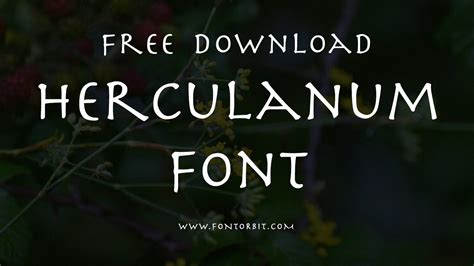
Herculanum Regular Font: A Timeless Classic
Let’s dive into the world of typography, guys ! Today, we’re shining a spotlight on a font that exudes a certain je ne sais quoi – the Herculanum Regular font . This isn’t just another typeface; it’s a piece of history, a work of art, and a testament to the enduring power of classic design. We will cover everything from its origins and characteristics to its best uses and alternatives, giving you a comprehensive understanding of why Herculanum Regular remains a cherished choice for designers and typographers alike.
Delving into the History and Origin of Herculanum Regular Font
Herculanum Regular boasts a fascinating backstory that adds to its allure. This font is not a digital creation from the late 20th or 21st century; instead, it draws its inspiration from ancient Roman inscriptions, specifically those found in the city of Herculaneum, which, like Pompeii, was tragically destroyed by the eruption of Mount Vesuvius in 79 AD. The discovery and subsequent excavation of Herculaneum unearthed a wealth of archaeological treasures, including remarkably well-preserved examples of Roman lettering. These inscriptions, characterized by their clean lines, balanced proportions, and timeless elegance, served as the primary source of inspiration for the font’s design.
The creation of Herculanum Regular can be attributed to the talented Adrian Frutiger , a Swiss typeface designer renowned for his contributions to the field of typography. Frutiger, a master of his craft, possessed a deep appreciation for historical forms and a keen eye for detail. In the 1990s, he embarked on a project to translate the essence of Herculaneum’s Roman inscriptions into a digital typeface that could be used in contemporary design. His goal was not to create a slavish imitation of the ancient lettering but rather to capture its spirit and adapt it for modern applications. Frutiger meticulously studied photographs and drawings of the Herculaneum inscriptions, analyzing the shapes of the letters, their spacing, and their overall visual impact. He then began the painstaking process of drawing each character, refining its form until it met his exacting standards. The result was Herculanum Regular, a font that embodies the timeless beauty of Roman lettering while possessing a distinct personality.
The font was carefully crafted to ensure its readability and versatility in a range of applications. Frutiger paid close attention to the kerning (the spacing between individual letters) and the overall rhythm of the typeface, ensuring that it would be pleasing to the eye and easy to read, even in extended passages of text. He also designed a full range of characters, including uppercase and lowercase letters, numerals, punctuation marks, and accented characters, making the font suitable for use in a variety of languages. Following its release, Herculanum Regular quickly gained popularity among designers and typographers who appreciated its unique blend of history and modernity. It has since been used in a wide range of projects, from book design and branding to signage and web design, demonstrating its enduring appeal and versatility.
Key Characteristics and Design Features of Herculanum Regular
When you look at Herculanum Regular , you’ll immediately notice its distinctive characteristics. It’s an all-caps font, meaning it only features uppercase letters. This isn’t a limitation but a deliberate design choice that harks back to its Roman inscription origins. The letters themselves are characterized by their clean, simple lines and balanced proportions. Each character feels meticulously crafted, with a sense of timeless elegance.
One of the most notable features of Herculanum Regular is the slight irregularity in its letterforms . Unlike some ultra-modern fonts that strive for perfect symmetry and uniformity, Herculanum Regular retains a touch of the human hand. This gives it a warmth and authenticity that is often lacking in more sterile typefaces. You might notice subtle variations in the thickness of the strokes or slight deviations from perfect geometric shapes. These imperfections are not flaws but rather intentional design elements that contribute to the font’s unique character.
Another key characteristic of Herculanum Regular is its lack of serifs . Serifs are the small decorative strokes that are found at the ends of the main strokes of a letter. Fonts with serifs are typically classified as serif fonts, while those without serifs are called sans-serif fonts. Herculanum Regular falls into the latter category. The absence of serifs gives the font a clean, modern look, even though it is based on ancient forms. This makes it a versatile choice for a wide range of design applications.
Furthermore, Herculanum Regular is known for its excellent readability , especially when used in headings and titles. The letters are well-spaced and easy to distinguish, even at smaller sizes. This is due in part to the font’s open counters (the enclosed spaces within letters such as “O” and “P”) and its relatively high x-height (the height of the lowercase “x” relative to the uppercase letters). These design features contribute to the font’s overall clarity and legibility. It also has a certain weight and presence on the page, commanding attention without being overly aggressive. It’s a font that speaks with authority and confidence, making it an excellent choice for projects that require a touch of gravitas. Its unique design features contribute to its timeless appeal, making it a favorite among designers and typographers who appreciate its blend of history and modernity.
Ideal Uses and Applications for Herculanum Regular Font
So, where does Herculanum Regular truly shine? Given its historical roots and elegant design, it’s particularly well-suited for projects that aim to convey a sense of history, tradition, or sophistication. Think branding for luxury goods, museums, historical societies, or even high-end restaurants. It’s also a fantastic choice for book covers, particularly those dealing with historical topics or classical literature. Its distinct letterforms can immediately grab the reader’s attention and set the tone for the book’s contents.
In the realm of editorial design , Herculanum Regular can be used to create impactful headlines and subheadings. Its strong presence on the page ensures that key information stands out, guiding the reader through the text. However, it’s generally not recommended for body text, as its all-caps design can become tiring to read in large blocks. Instead, pair it with a more legible serif or sans-serif font for the main body of your text. When it comes to branding , Herculanum Regular can lend a touch of class and sophistication to your visual identity. It’s particularly effective for brands that want to project an image of heritage, quality, and timelessness. Imagine it adorning the logo of a prestigious watchmaker or a renowned art gallery. Its unique letterforms will help your brand stand out from the competition and create a memorable impression.
Beyond print, Herculanum Regular can also be used in digital design , although with some caution. Its all-caps design can sometimes be challenging to read on screen, especially at smaller sizes. However, it can be used effectively for website headers, banners, and other display elements. Just be sure to test its readability on different devices and screen resolutions. In terms of design styles , Herculanum Regular pairs well with a variety of aesthetics. It can be used to create a classic, traditional look, or it can be combined with more modern elements to create a unique and unexpected contrast. It also works well with a range of color palettes, from muted earth tones to bold, vibrant hues. Its versatility makes it a valuable tool for designers who want to create visually appealing and impactful designs. Ultimately, the key to using Herculanum Regular effectively is to understand its strengths and limitations and to use it in a way that complements the overall design. Its unique blend of history and modernity makes it a font that can add a touch of class and sophistication to any project.
Exploring Font Alternatives to Herculanum Regular
While Herculanum Regular is a unique and beautiful font, it’s not always the perfect choice for every project. Sometimes, you might need a font that offers a similar aesthetic but with a slightly different flavor. Or perhaps you need a font that’s more versatile and can be used for both headings and body text. Whatever your reason, there are several excellent alternatives to Herculanum Regular that are worth considering.
One popular alternative is Trajan Pro , designed by Carol Twombly for Adobe. Like Herculanum Regular, Trajan Pro is inspired by Roman square capitals, specifically those found on the Trajan Column in Rome. It’s an all-caps font that exudes a sense of grandeur and authority, making it a great choice for projects that require a touch of historical gravitas. However, Trajan Pro is slightly more refined and polished than Herculanum Regular, with more consistent letterforms and a more contemporary feel. Another excellent alternative is Optima , designed by Hermann Zapf. Optima is a sans-serif font that features elegant, humanist letterforms. While it doesn’t have the same historical connection as Herculanum Regular, it shares a similar sense of timelessness and sophistication. Optima is also more versatile than Herculanum Regular, as it includes both uppercase and lowercase letters, making it suitable for a wider range of applications.
If you’re looking for a font that’s a bit more modern and geometric, consider Futura . Designed by Paul Renner in 1927, Futura is a classic sans-serif font that’s characterized by its clean lines and geometric shapes. While it doesn’t have the same historical feel as Herculanum Regular, it shares a similar sense of simplicity and elegance. Futura is also a very versatile font that can be used for a wide range of design applications. For a font with a similar feel but with added versatility, you might explore Montserrat . This typeface, popular in web design, offers a geometric sans-serif style with a wide range of weights and styles, making it suitable for both headings and body text.
Finally, if you want to stay true to the Roman aesthetic but need a font that includes lowercase letters, consider using a serif font like Garamond or Times New Roman for body text and pairing it with Herculanum Regular for headings. This can create a visually appealing contrast and ensure that your text is easy to read. Ultimately, the best alternative to Herculanum Regular will depend on the specific requirements of your project. Consider the overall tone and message you want to convey, as well as the readability and versatility of the font. With a little experimentation, you’re sure to find the perfect typeface to complement your design.
Conclusion: The Enduring Appeal of Herculanum Regular
In conclusion, Herculanum Regular remains a timeless classic in the world of typography. Its unique blend of historical inspiration, elegant design, and subtle imperfections makes it a font that stands out from the crowd. While it may not be the perfect choice for every project, its versatility and enduring appeal ensure that it will continue to be a favorite among designers and typographers for years to come.
From its origins in ancient Roman inscriptions to its modern-day applications in branding, editorial design, and web design, Herculanum Regular has proven its ability to transcend time and trends. Its clean lines, balanced proportions, and subtle irregularities give it a character and warmth that is often lacking in more sterile typefaces. Whether you’re designing a book cover, creating a logo, or crafting a website, Herculanum Regular can add a touch of class and sophistication to your project. So, the next time you’re looking for a font that exudes a sense of history, tradition, or elegance, remember Herculanum Regular. It’s a font that’s sure to leave a lasting impression.